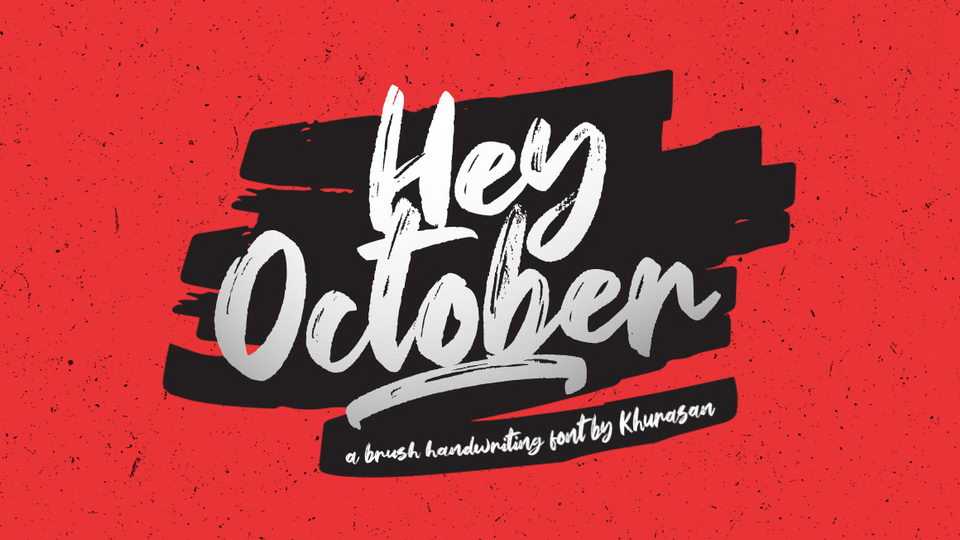
Hey October Font › Fontesk – Download Grátis
Download Hey October font, a hand lettered bold brush script with a natural texture. Hey October font perfectly fits for posters, headlines, attractive messages, t-shirt prints, social media and more.